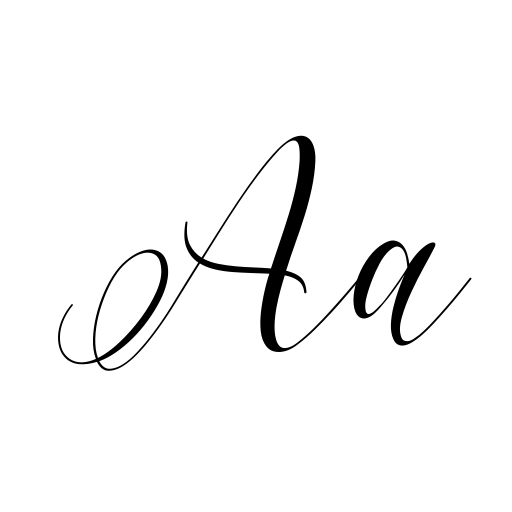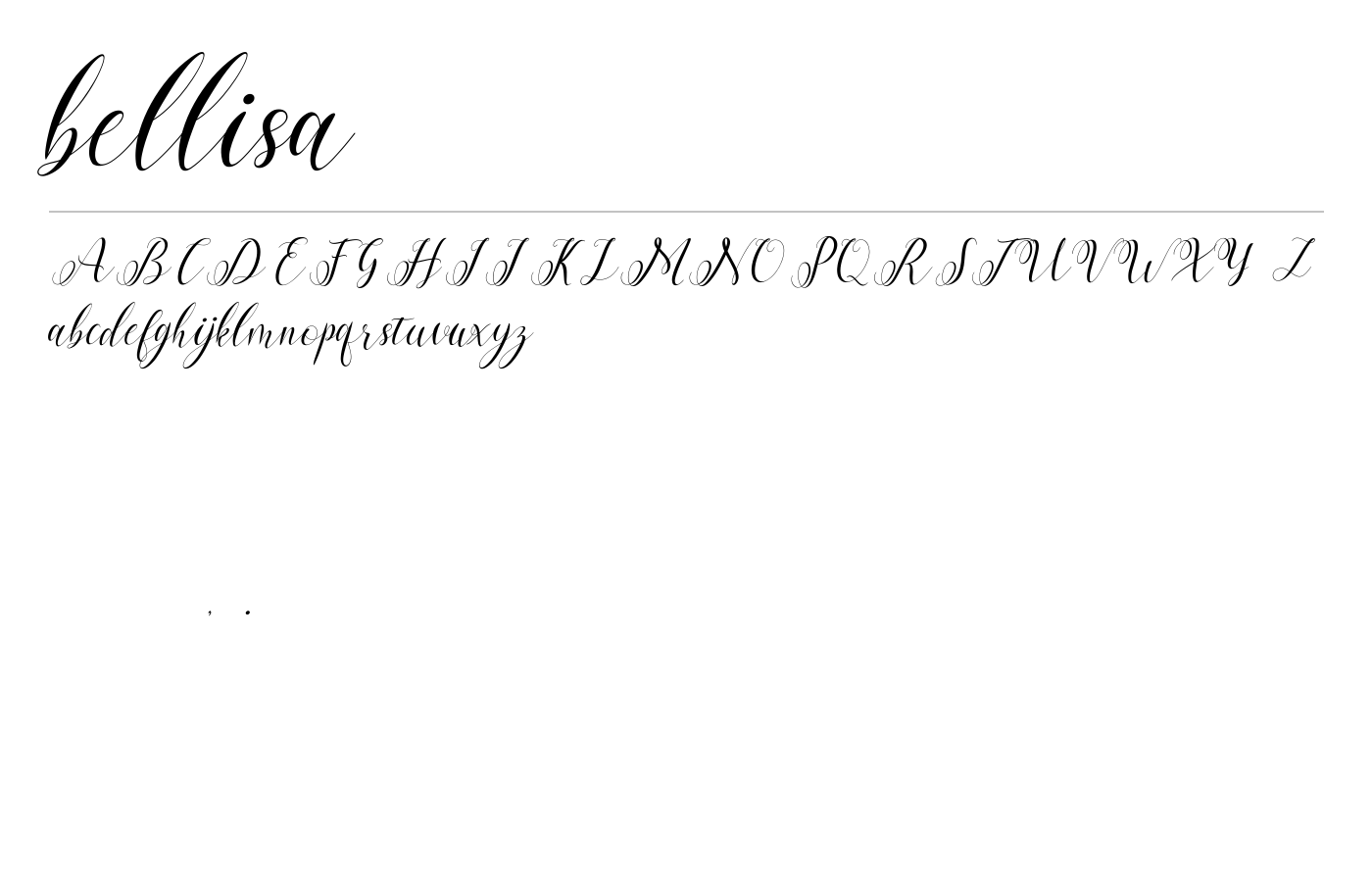
Bellisa is a graceful script font with elegant, flowing strokes that mimic stylish calligraphy. Its delicate, high-contrast lines and swirly letterforms give it a refined and sophisticated feel, making it perfect for wedding invitations, luxury branding, and elegant editorial design where a touch of class and femininity is desired.
bellisa Font